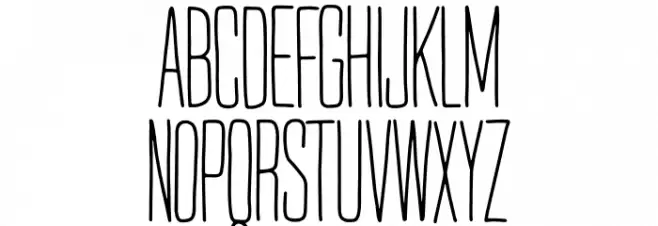
( If you are looking for a handwritten typeface that can perfectly use in all yourvaluable designs then pick Mr. Quincy font. This is a handcrafted typeface that comes with extended features and a huge stylish character set that are very suitable for any ty FREE )
Mr. Quincy Regular